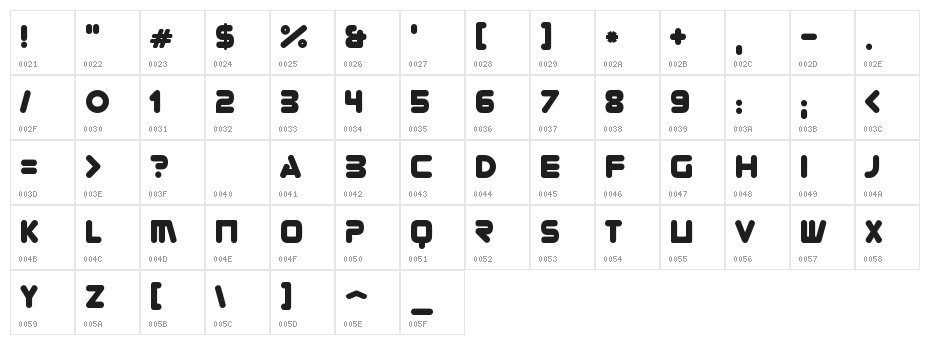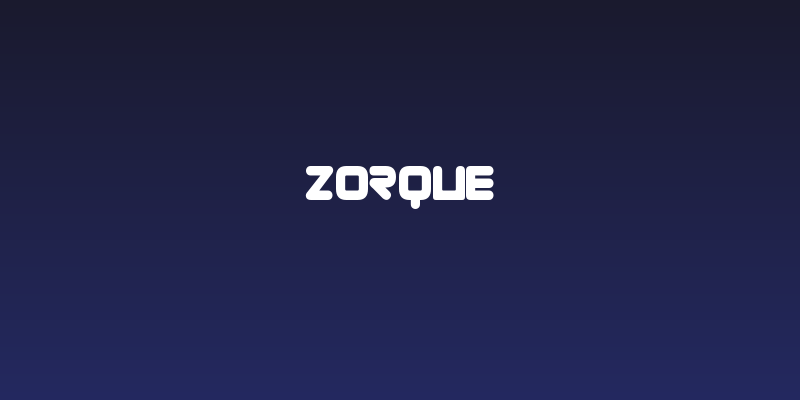
Zorque Font
Zorque Description
This font features a bold, rounded style with a futuristic and playful appearance. The characters are uniformly thick, creating a strong visual impact. The rounded edges and uniform stroke width give it a friendly and approachable feel, while the geometric shapes add a modern touch. The uppercase and lowercase letters maintain consistency in style, and the numbers and special characters are designed to match the overall aesthetic. This font is ideal for projects that require a bold statement and a modern, playful vibe.
| Proposed Projects | Ideal for branding, advertising, posters, and digital media that require a bold and modern look. |